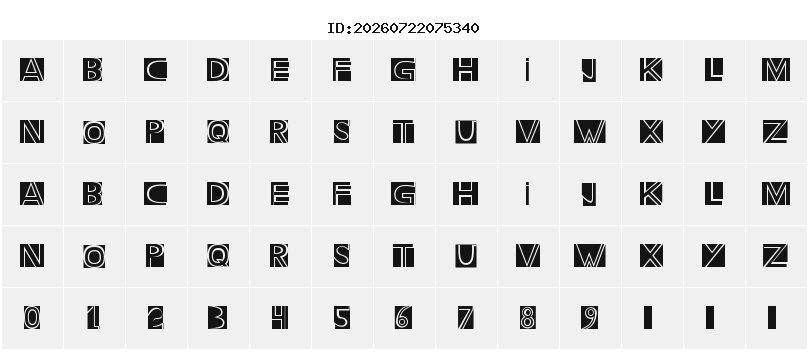
Holitter Block Preview
• Font Name: Holitter Block
• Full Font Name: Holitter Block
• Version: Version 1.00 February 16, 2009, initial release
About Holitter Block.ttf
Holitter Block.ttf is a modern, elegant sans-serif font designed for ultimate readability and visual harmony. Perfect for branding, headlines, web design, and print materials.